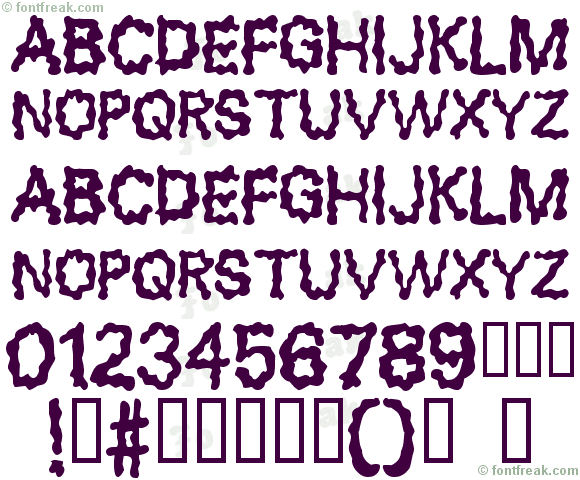
Blobs
About Blobs
Blobs by Pizzadude is a captivating display font that falls into the decorative category. Its unique design features irregular, blob-like shapes that create an organic and playful look, making it an eye-catching choice for various creative projects. The stroke weight is consistent throughout, with a smooth, rounded appearance that adds to its whimsical character. The spacing between the letters is intentionally varied, which enhances its artistic flair and offers a sense of movement and dynamism.
This font is ideal for various use cases, particularly in projects that seek to convey a fun and approachable vibe. It works wonderfully for children's book covers, where its playful nature can engage young readers. Additionally, it's perfect for party invitations, adding a festive touch that invites excitement. Restaurant menus can also benefit from the Blobs font, lending a casual and friendly atmosphere that invites diners to explore the offerings. Another great application is in social media graphics, where its distinctive style can help brands stand out in a crowded digital space.
The target audience for Blobs includes graphic designers looking to add a unique flair to their work, small business owners wanting to create memorable marketing materials, and content creators seeking to enhance their visual storytelling.